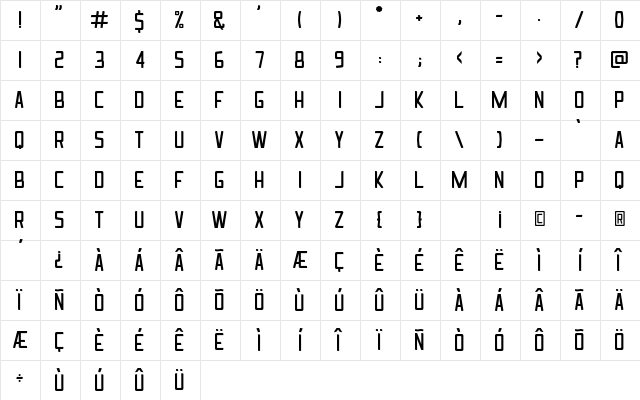
Ingrata Regular
Foundry: a Falange | est?dio. Elvis H. Martuchelli - Vinicius de Abreu Lima - Ricardo Jacob Hessel
Designer: Elvis H. Martuchelli @ a Falange | est?dio
Ingrata Family
Complete Ingrata Regular glyph index. Displaying only characters natively supported by Ingrata Regular font.
Design Context for Ingrata
Ingrata is a composed and adaptable typeface that performs quietly and consistently across a wide range of design contexts.
Who designed the Ingrata Regular font?
This font was published by a Falange | est?dio. Elvis H. Martuchelli - Vinicius de Abreu Lima - Ricardo Jacob Hessel. Check the technical specs section for copyright and designer details.